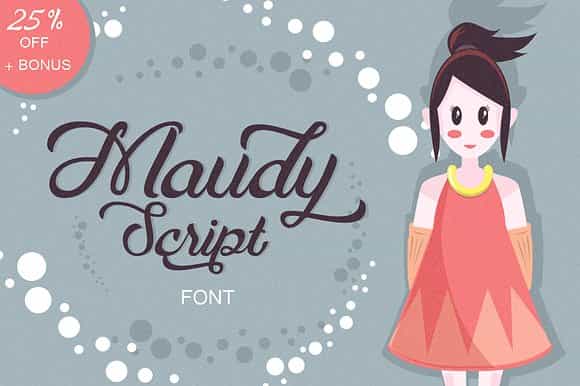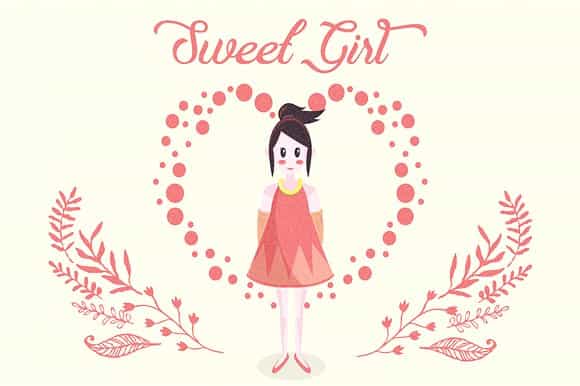
Introducing Maudy Font! Maudy is a typeface that combines the modern and bold with the natural handwriting brush lettering. It is appropriate for logo, packaging, cover book title, poster, t-shirt design and wedding invitation.